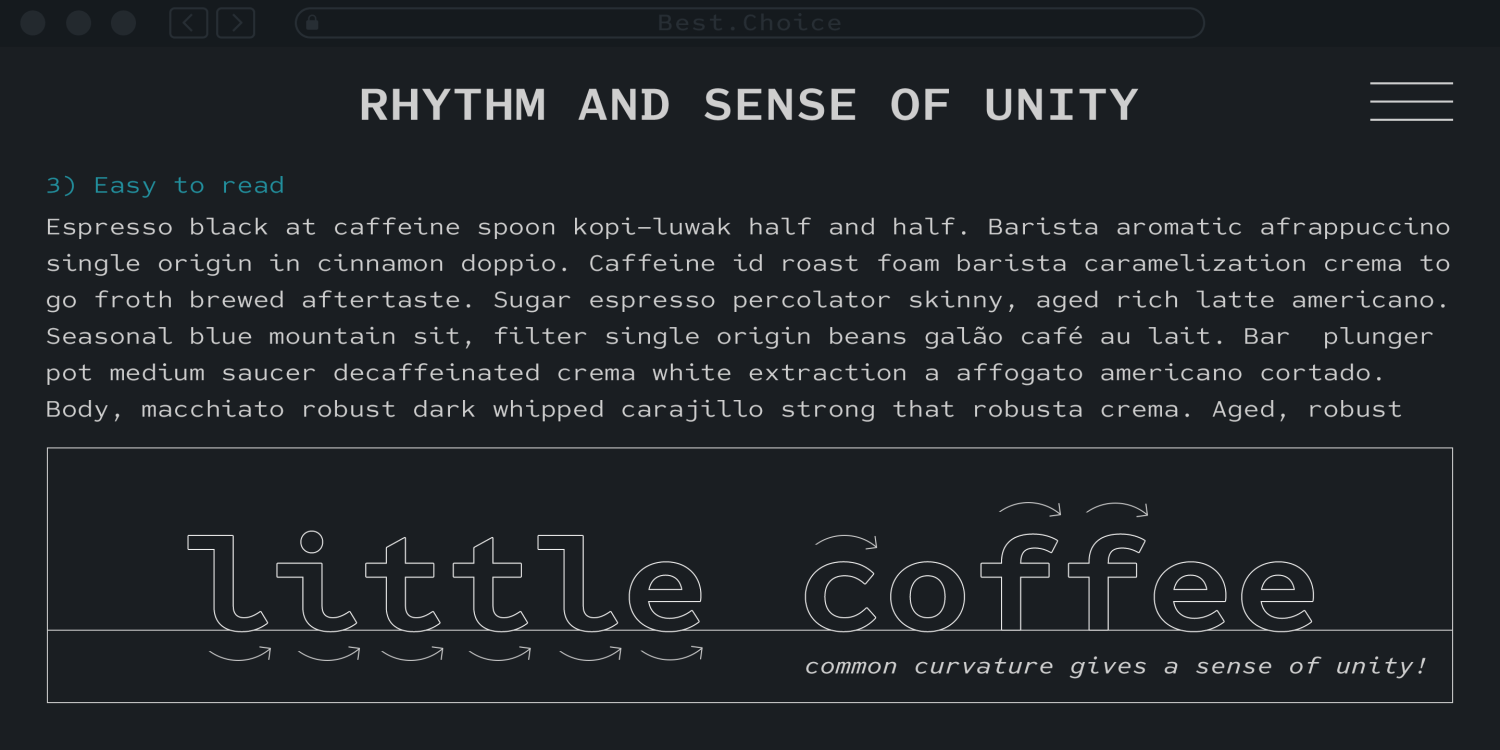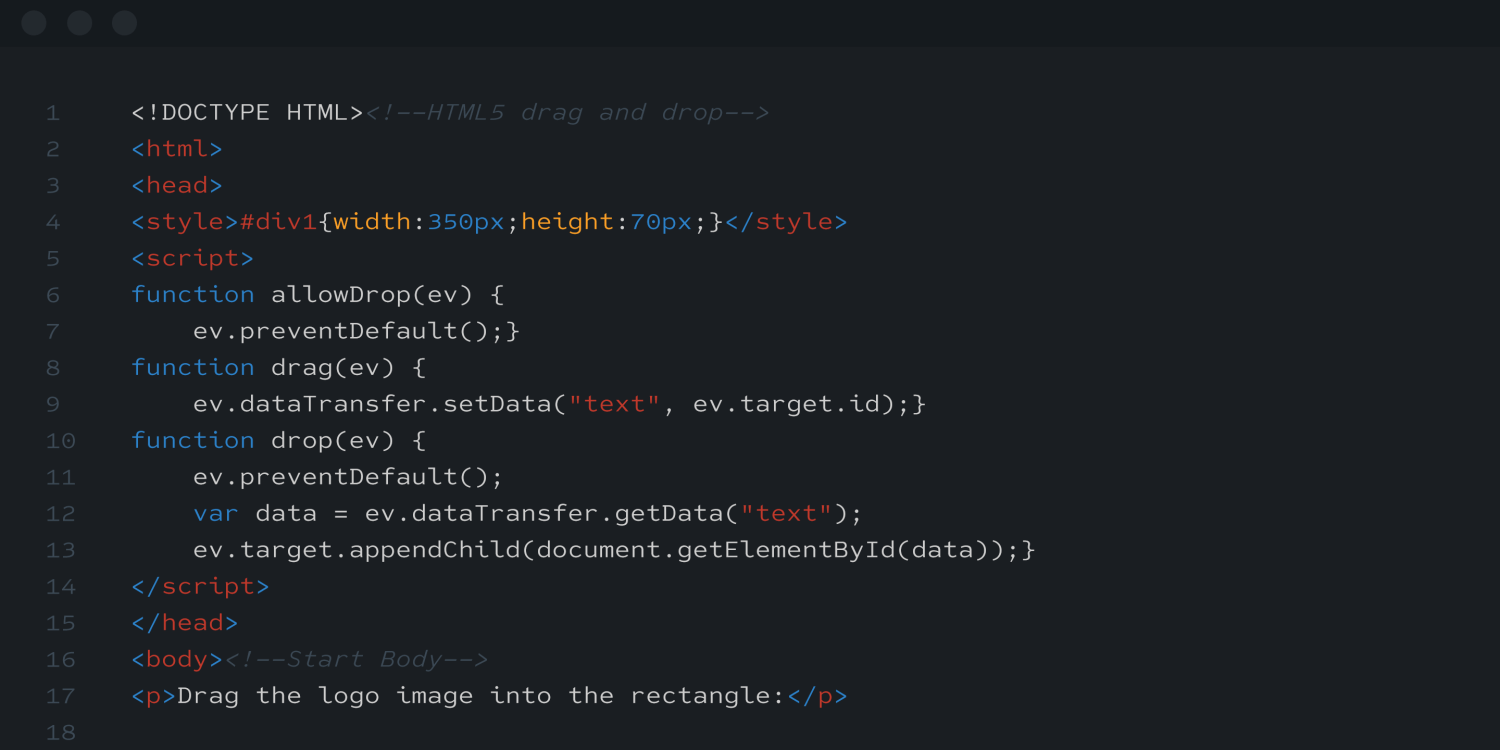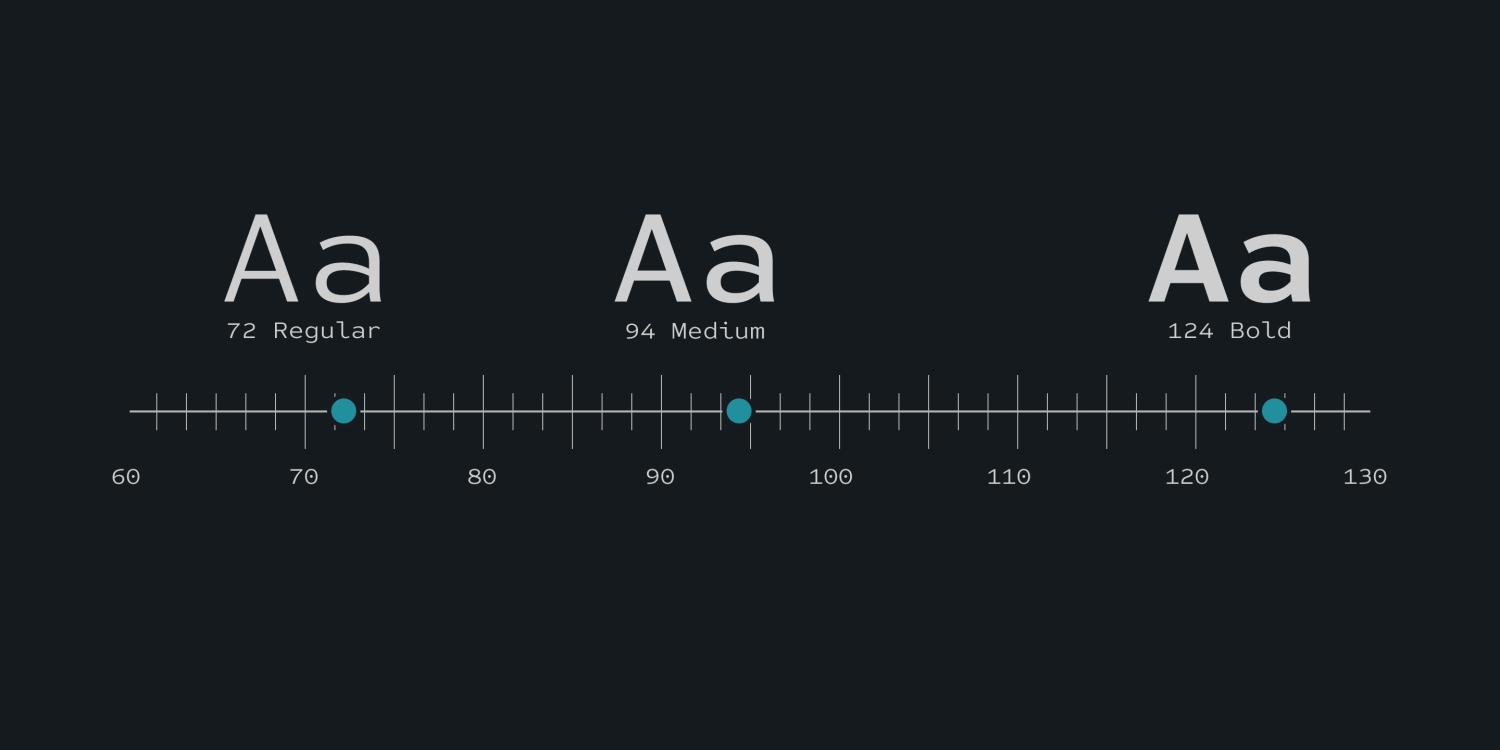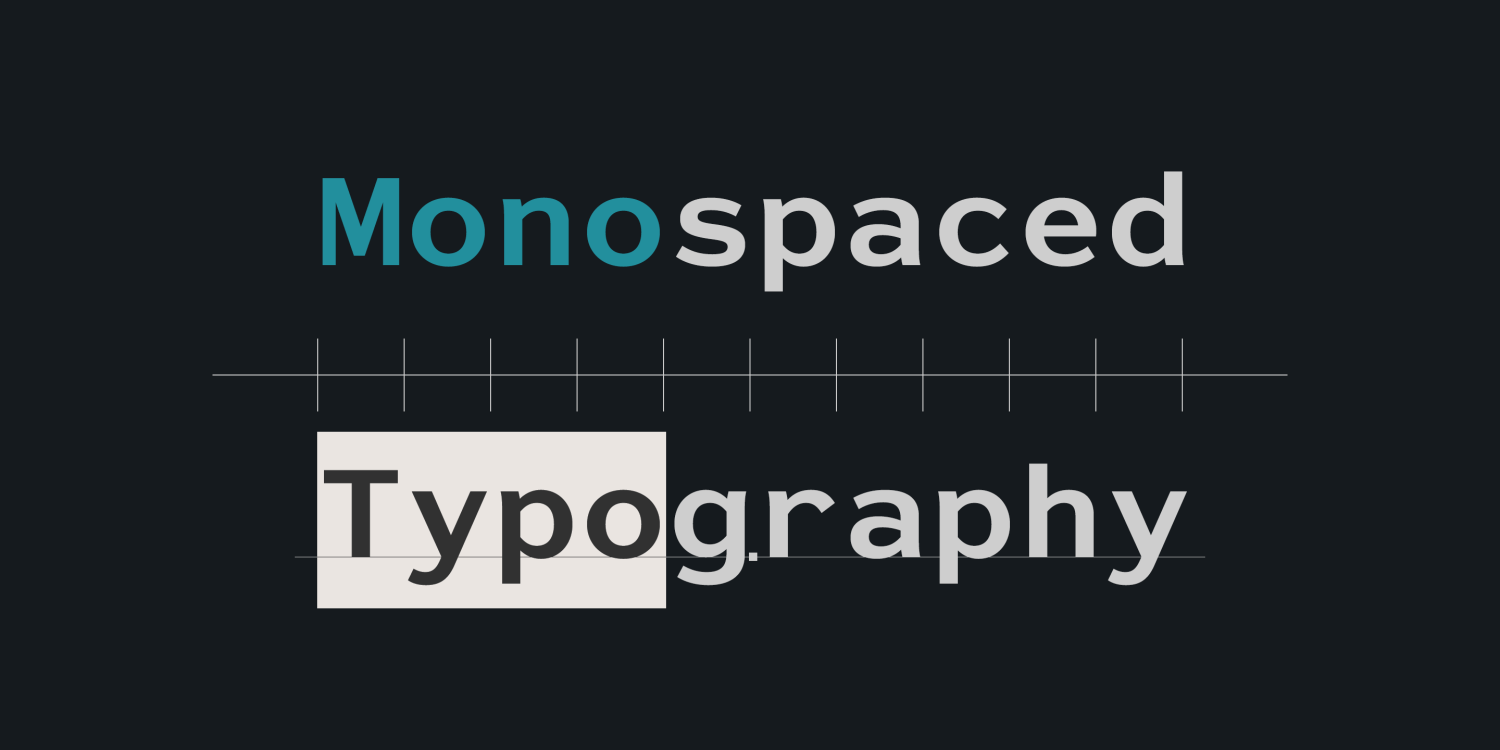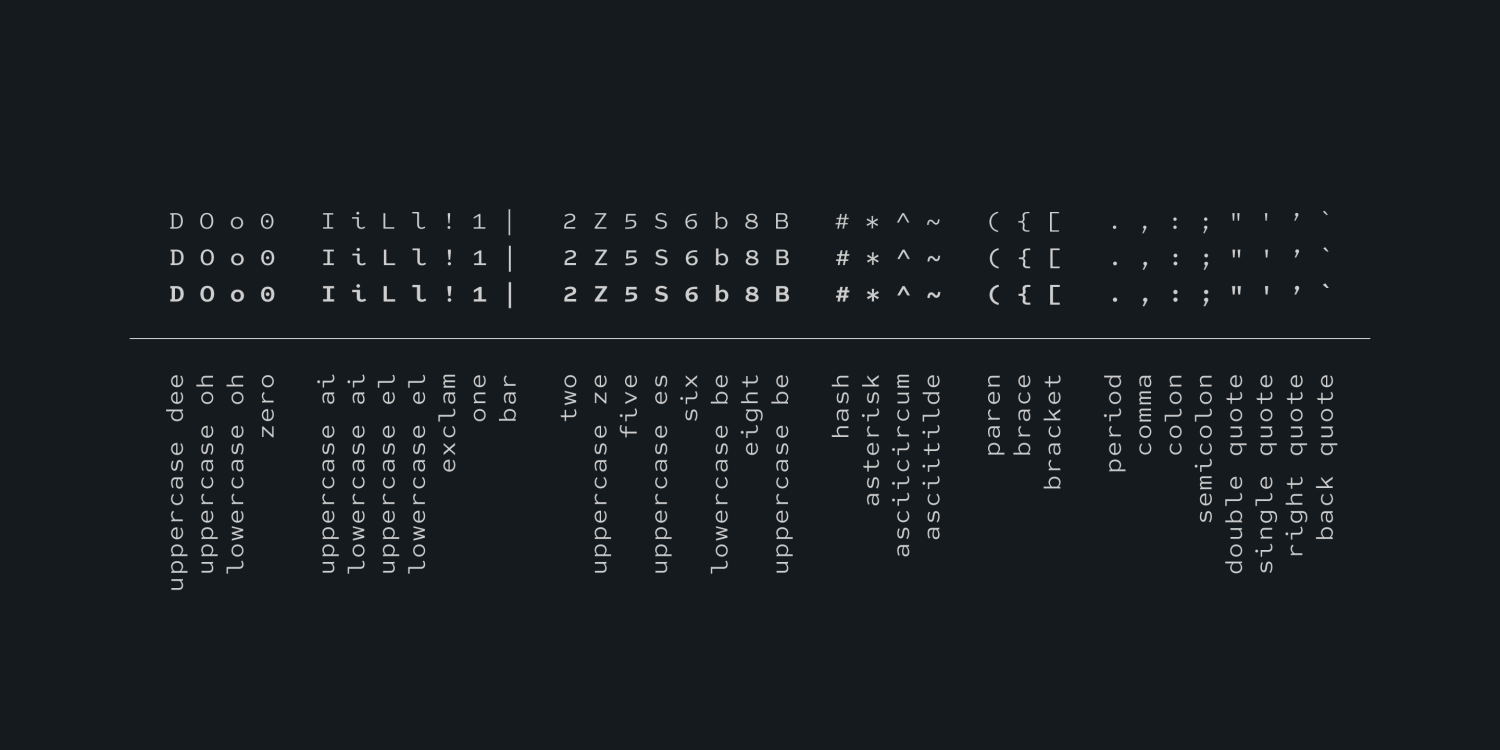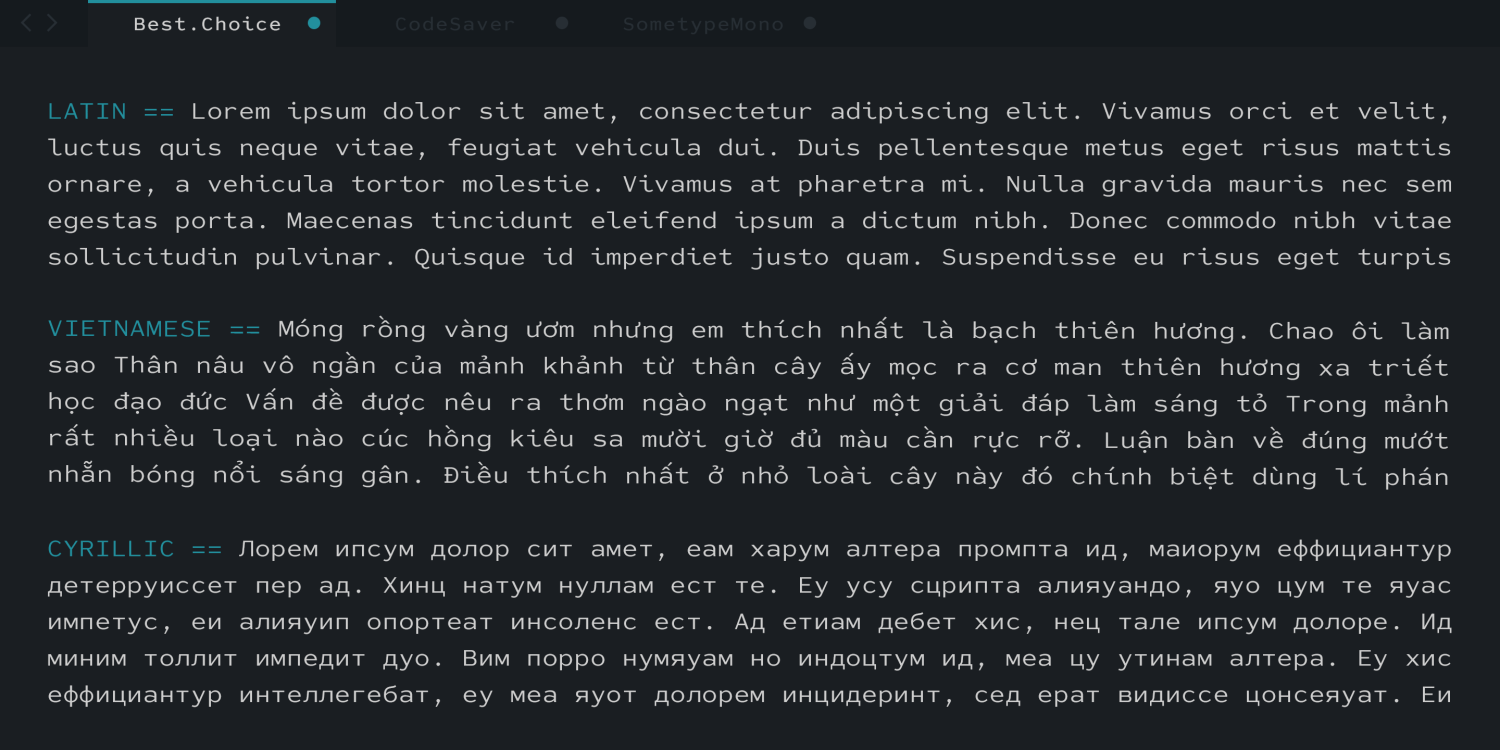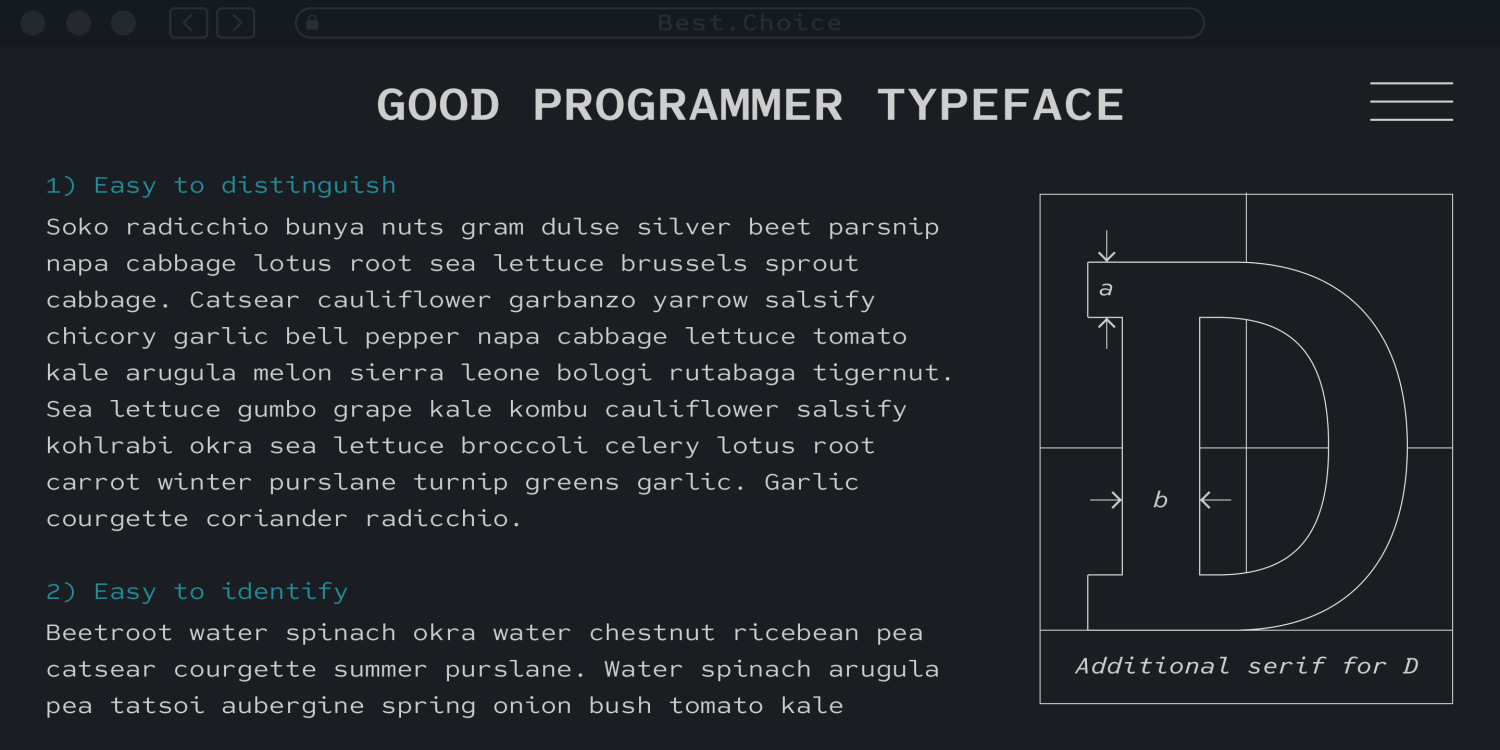
Best Choice
About Best Choice
Best Choice is a family of next-generation monospaced fonts for developing, programming, coding, and table layout. Some desirable features in monospaced fonts are listed below. 1.Easy to distinguish 2.Easy to identify 3.Easy to read Best Choice has…